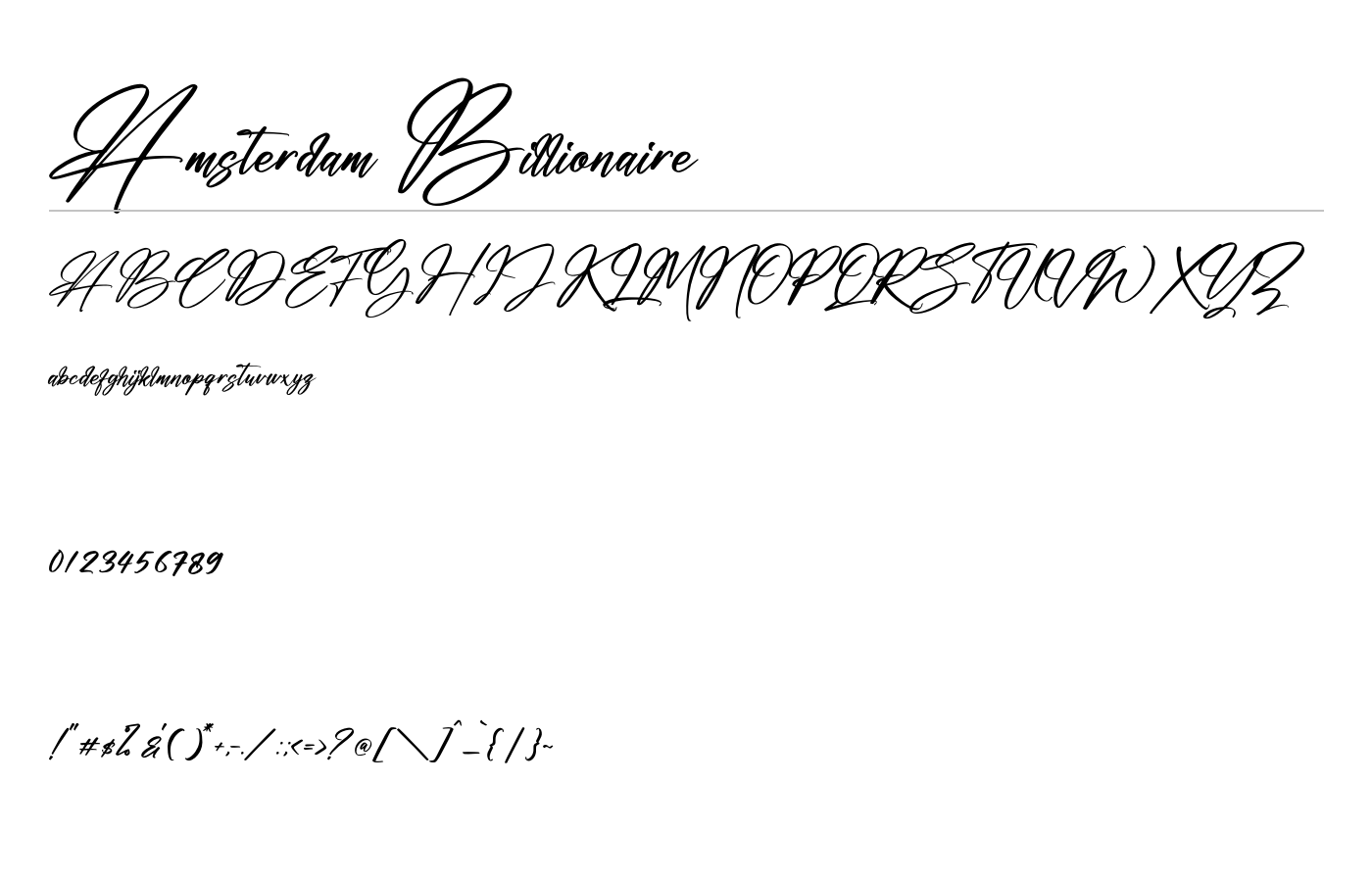
Amsterdam Billionaire is an elegant script font with a luxurious, handwritten feel that features flowing, connected strokes and graceful swashes. Its thin, slightly varying line weights and high contrast create a stylish, sophisticated look perfect for upscale branding, invitations, or fashion-related designs. This font works best in large display settings like logos and headlines where its refined personality can truly shine.
Amsterdam Billionaire Font
About Amsterdam Billionaire Font